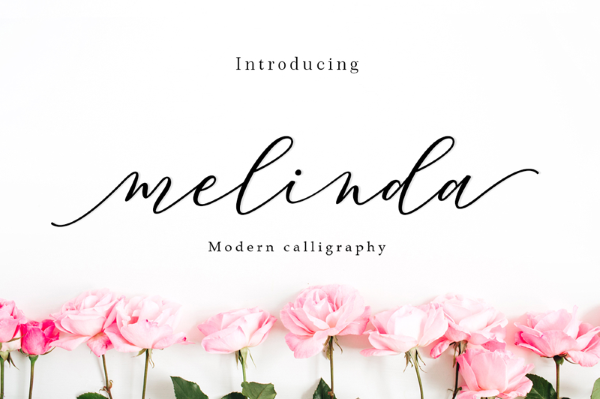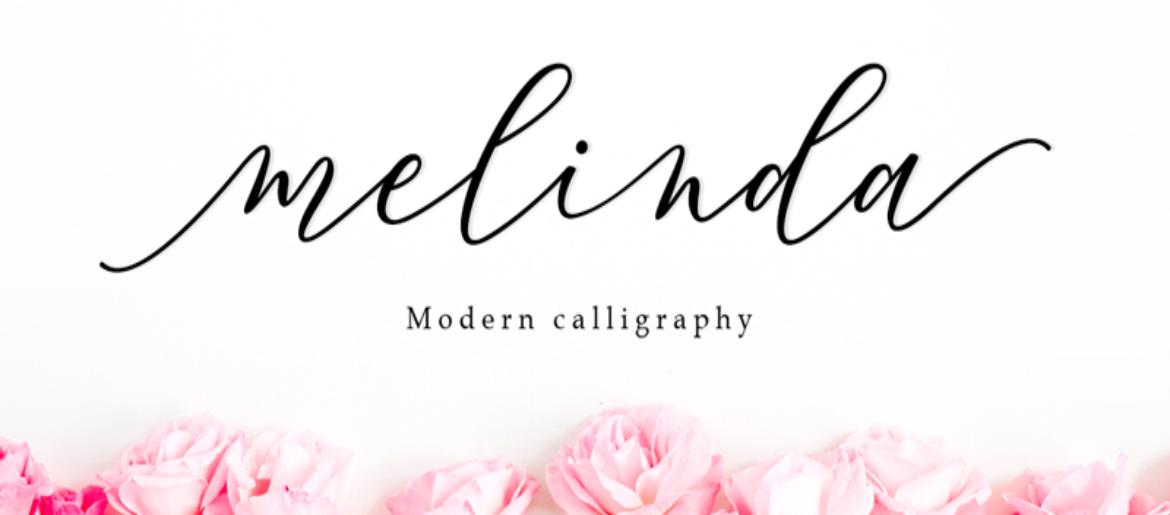
Melinda Font
Melinda by Amarlettering is a graceful luxury script typeface that brings an effortless sense of class and refinement to any design it graces. Its flowing, classy handwritten characters move with the natural rhythm of fine penmanship — making it equally at home on classic movie or book titles, wedding banners, invitation cards, personal stationery, and elegant poster designs where the lettering itself is the statement. A typeface that gives life and personality to the written word without the need for supporting elements. Free for personal use.